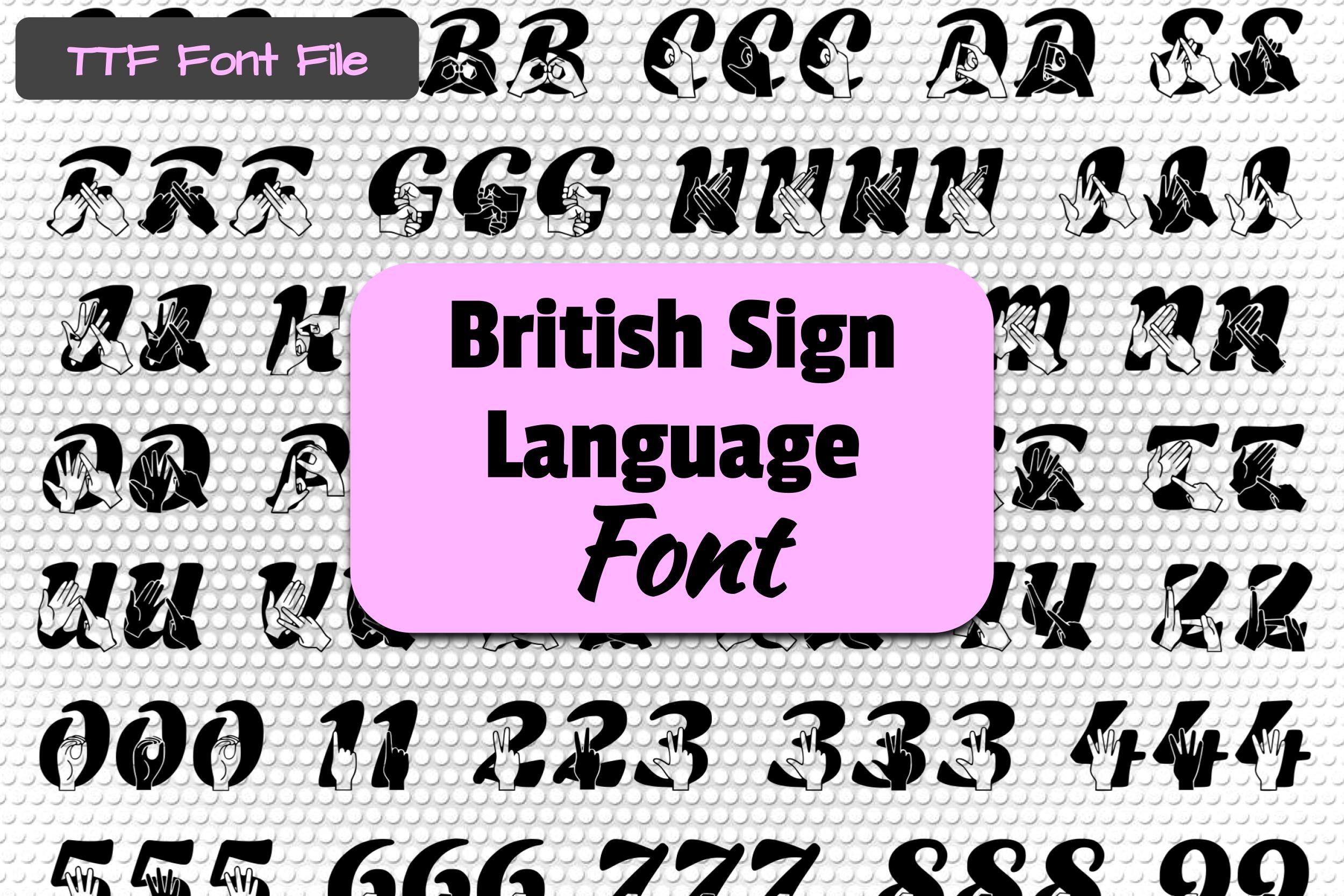
Able Lingo BSL 3 Font Description
Able Lingo BSL 3 is a decorative font inspired by the British Sign Language. It is the perfect font choice for any creative project you can think of. Add it to your favorite designs, and notice how it makes them interesting and appealing!